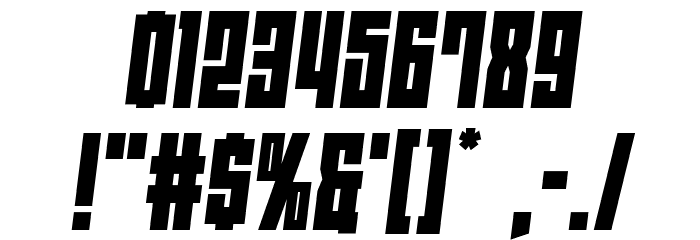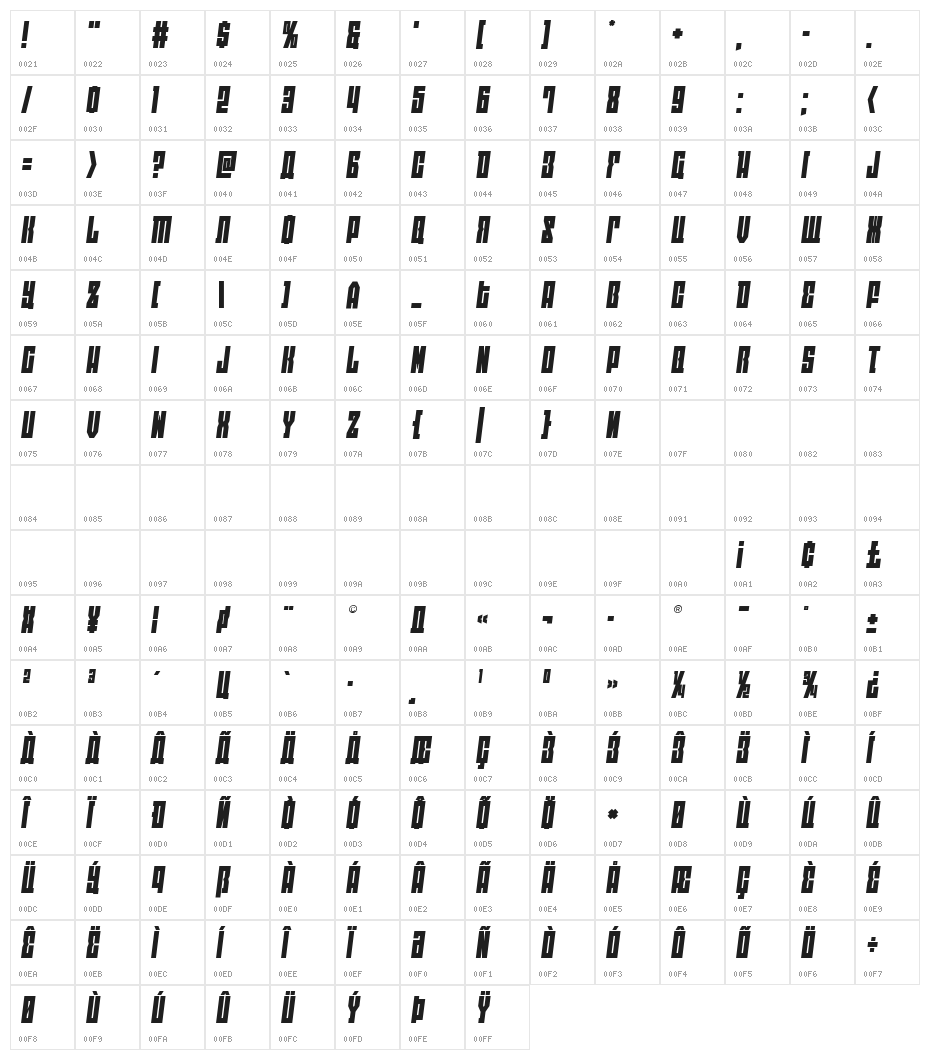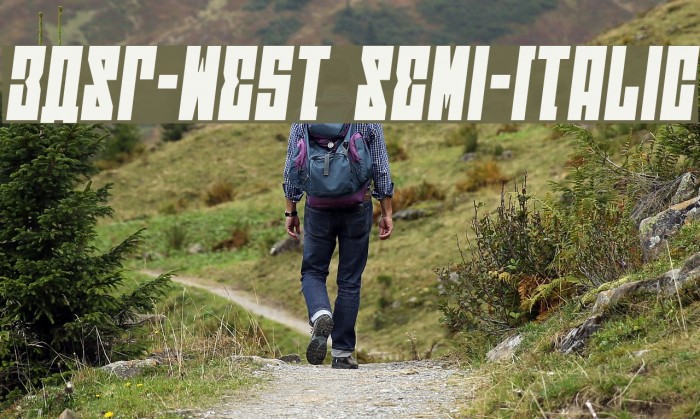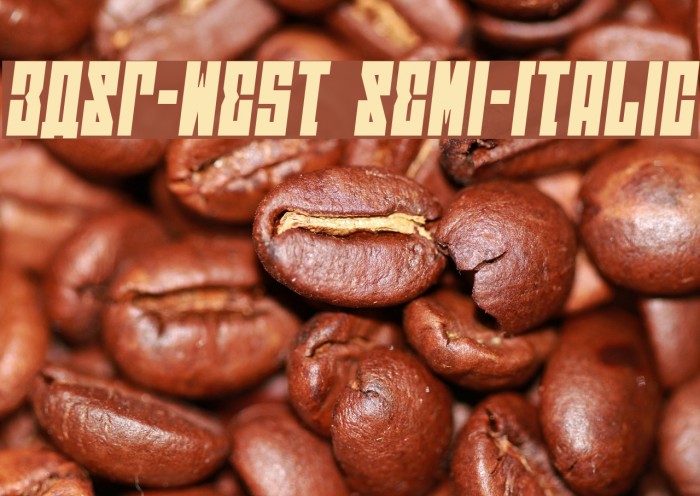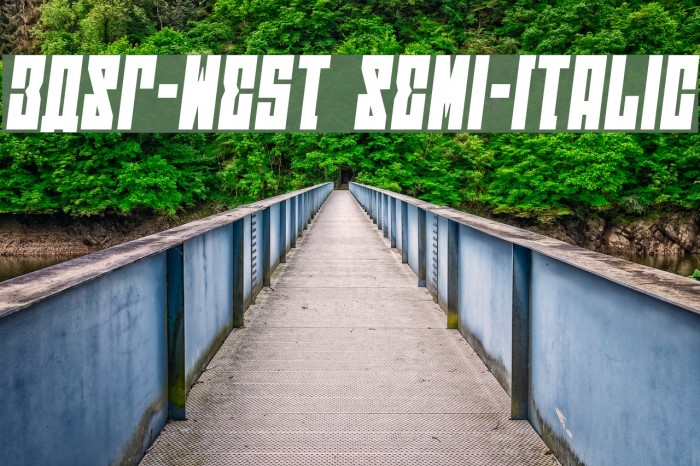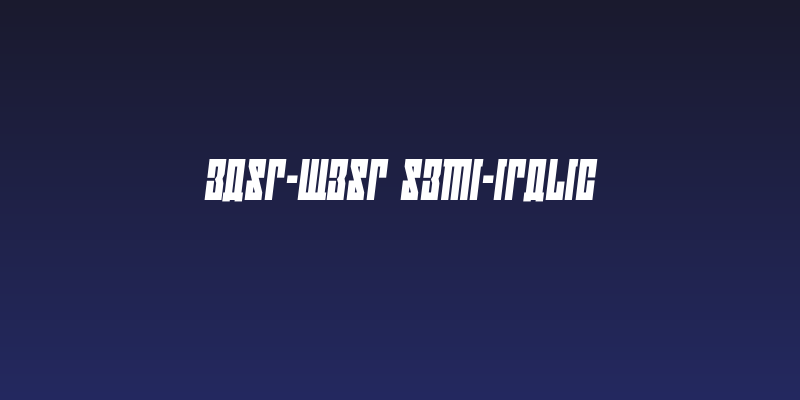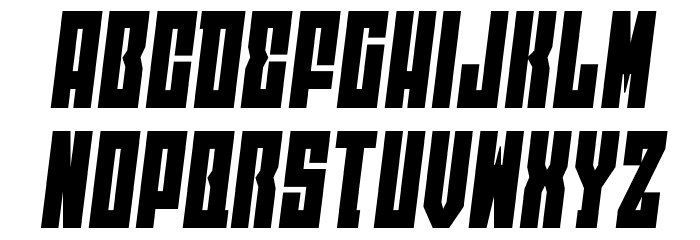
EAST-west Semi-Italic Font
EAST-west Semi-Italic Description
This font features a bold and dynamic style with a strong presence. The characters are designed with a semi-italic slant, giving them a sense of movement and energy. The strokes are thick and consistent, creating a powerful visual impact. The uppercase and lowercase letters maintain a uniform height, while the numbers and special characters are crafted to match the overall aesthetic. This font is highly legible and stands out due to its unique geometric shapes and sharp angles.
| Proposed Projects | Ideal for sports branding, dynamic posters, and modern advertising campaigns. |